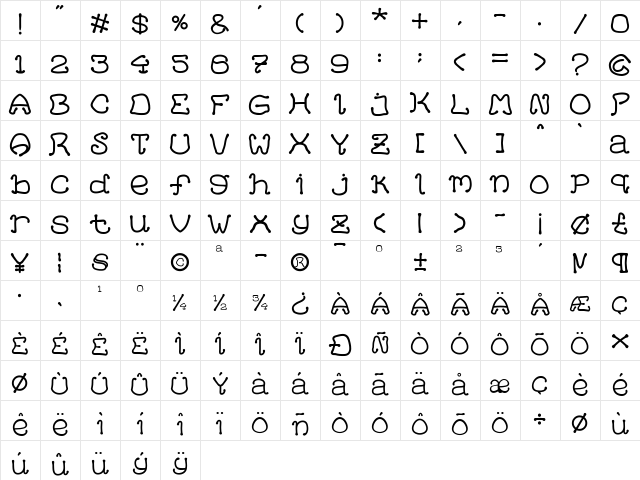
HelloCat Regular
Design Context for HelloCat Typeface
HelloCat is a composed and adaptable typeface that performs quietly and consistently across a wide range of design contexts.